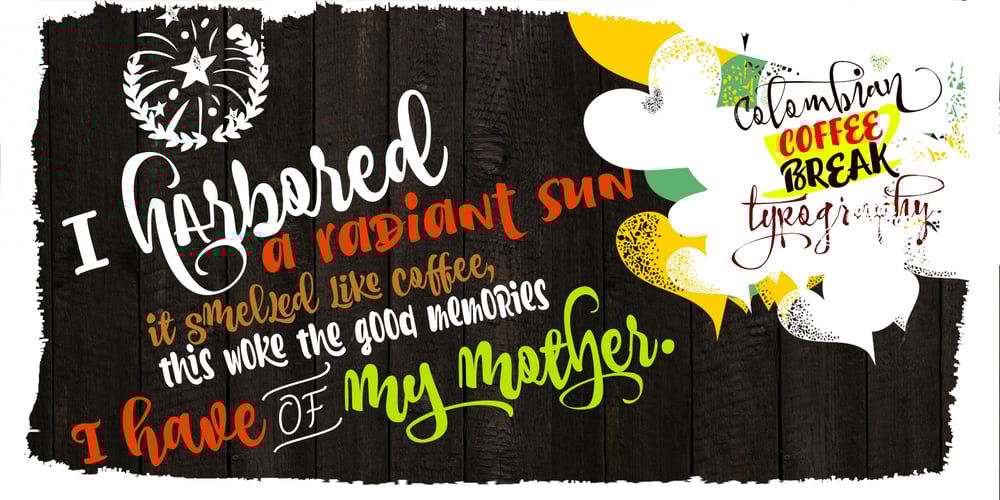
CoffeeBreak Font Family was designed by Carlos Fabián Camargo Guerrero and published by Andinistas. CoffeeBreak contains 7 styles and family package options. The coffee made typography. CoffeeBreak is a typefamily designed by Carlos Fabian Camargo G. Its purpose is to communicate similar feelings to the ones you get when you first try the best roasted Colombian coffee early in the morning. That is the reason of the waiting, accompanied, or when you only want to be, nuances your design with its fonts full of flavor, texture and passion. For each time, every time, it gives you hints of flavor to design your day. It unleashes your artistic streak mixing possibilities as you wish, to your taste or the taste of your friends or that special someone. From handwriting to every warm drop of your first mug of the morning, we’ve always got something for you. Eye catching, modern, beautiful, cool and adventurous styles in the CoffeeBrwak shop ready for you to purchase. – CoffeeBreak A & B: 2 typographic tools with countless swashes and ligatures ideal for use at the beginning, in the middle or end of words that need italics, flavored dancers and rhythm masterfully expressed in gestural strokes for his calligraphic experimental logic. – Coffee Break Script 1 & 2: write them you can easily with decorative letters advocating a return to the artisan product ingenuity of the primacy of man over machine so your upper and lower case letters travel in a single line. – CoffeeBreak Words & WordsBold: It contains words specially designed to attract attention. – CoffeeBreak Dingbats: They are figurative silhouettes with textures that add warmth and a highly communicative environment. All are easily activated glyphs using the Glyphs panel in Illustrator, InDesign and Photoshop. Special thanks: Ilustrations: Eduardo Gomes. Photos: Karen Salvatierra. Texts: Javier Lineares- Description: Ernesto Googolplex. French translation: Marta Cano